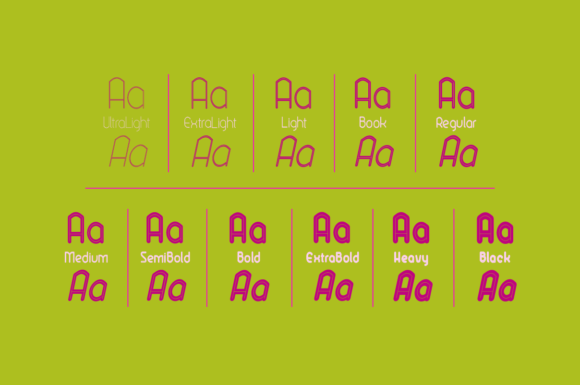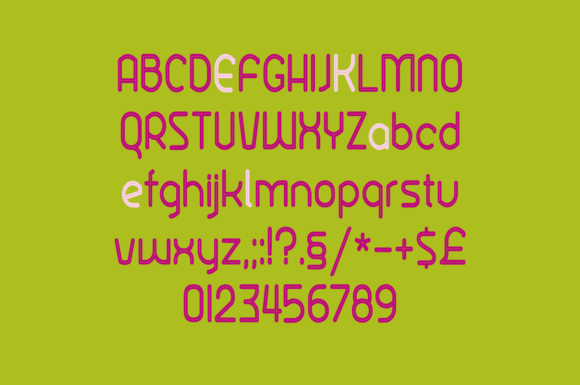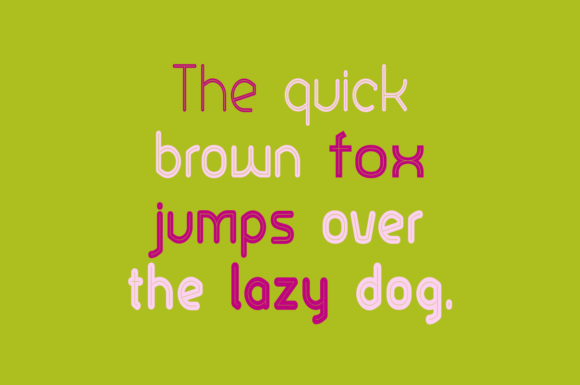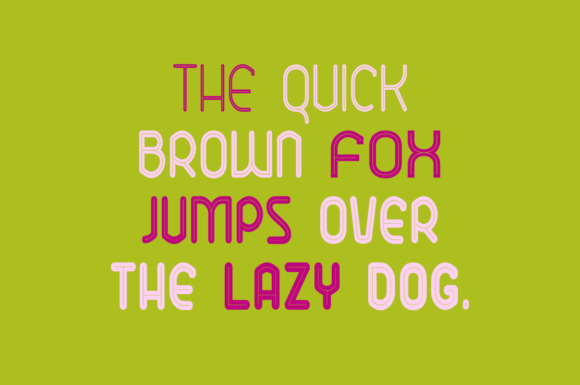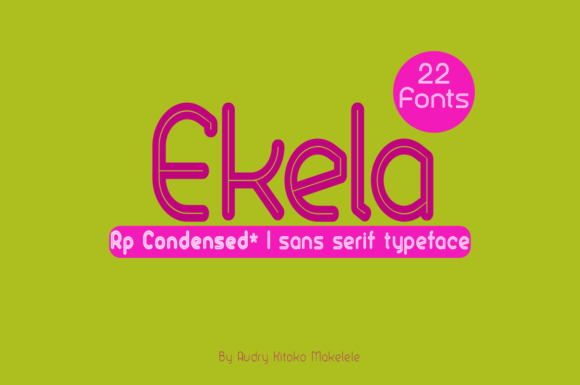
The Perfect Font for Your Creative Projects
Have you ever been in the middle of a design project, staring at a blank canvas, and struggling to find the perfect font to bring your vision to life? You know the feeling – it’s a mix of excitement and frustration, all at once. That’s where Ekela Font comes in – a minimal and neat sans serif font that’s designed to make your creative ideas shine.
Ekela Font is more than just a font – it’s a tool that can elevate your designs and make them stand out from the crowd. With its versatility and clean lines, it’s the perfect addition to any project, whether you’re designing a logo, a website, or a brochure. As a designer, you know how valuable it is to have a font that can adapt to any style or theme – and that’s exactly what Ekela Font offers.
Ekela Font Key Features
• Unique Characteristics: Ekela Font features a unique blend of modern and elegant styles, with subtle nuances in letterforms and a high level of detail.
Ekela Font Review
Overall, I think Ekela Font is a solid addition to any designer’s toolkit. It’s got a unique blend of modern and vintage elements that can add a touch of sophistication to any design project. ✨
• Unique blend of modern and vintage elements
• Highly customizable with a wide range of font weights and styles
• Works well for both body text and headings
• Supports a wide range of languages
However, I do think there are a few limitations to consider: ⚠️
• Lack of bold and italic variations in some font weights
• Some characters may not render correctly in certain contexts
• Not as widely supported on older browsers or operating systems
Overall, I’d say Ekela Font is a great choice for designers who want to add a bit of flair to their projects. While it may not be perfect, it’s definitely worth considering for its unique style and high level of customization.
Ekela Font is a versatile font suitable for various design projects, including:
1. Graphic designs, logos, and branding materials.
2. Digital marketing materials, such as social media posts and email campaigns.
3. Print materials, like business cards, brochures, and flyers.
Ekela Font Alternatives for Designers
Raleway Font
Raleway is a popular sans-serif font designed by Matt McInerney. It’s ideal for use in digital products, such as websites, apps, and mobile interfaces, due to its clean and modern aesthetic. Raleway is more condensed than Ekela Font, making it suitable for small screen sizes and digital displays.
Comparison to Ekela Font: Raleway has a more subtle, elegant feel, whereas Ekela Font is more playful and bold. Raleway is also more versatile, with a wide range of weights and styles available.
Montserrat is a geometric sans-serif font designed by Julieta Ulanovsky. It’s perfect for use in urban and modern designs, such as magazines, posters, and street art. Montserrat is more geometric and structured than Ekela Font, making it suitable for designs that require a strong, architectural feel.
Comparison to Ekela Font: Montserrat has a more industrial and edgy feel, whereas Ekela Font is more playful and creative. Montserrat is also more versatile, with a wide range of weights and styles available.
Open Sans is a modern sans-serif font designed by Steve Matteson. It’s ideal for use in digital products, such as websites, apps, and mobile interfaces, due to its clean and readable aesthetic. Open Sans is more neutral and versatile than Ekela Font, making it suitable for a wide range of designs and applications.